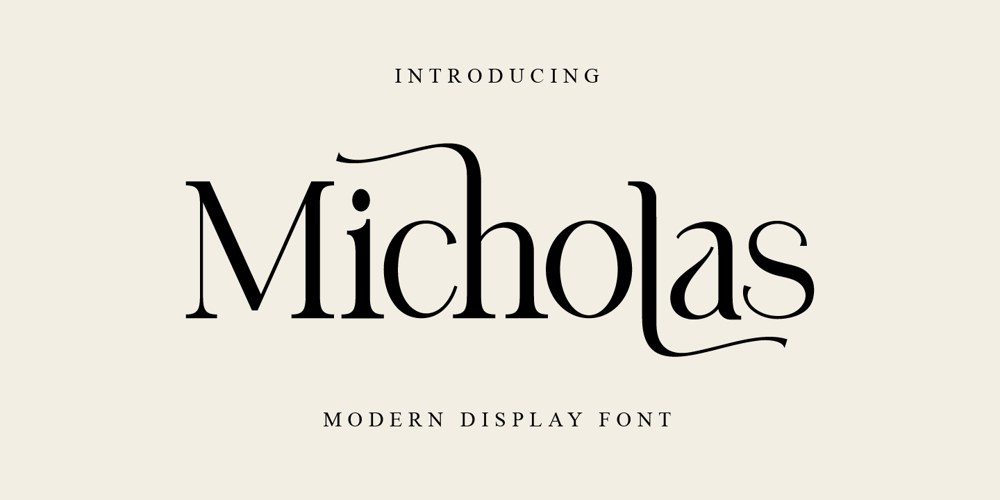
Micholas Font Family was designed by Hayinah and published by Rockboys Studio. Micholas contains 1 styles and family package options. Micholas is a simple and casual serif font with an undeniably clean feel. With its neat and beautiful arrangement of letters, this typeface will look outstanding in both formal and non-formal designs.